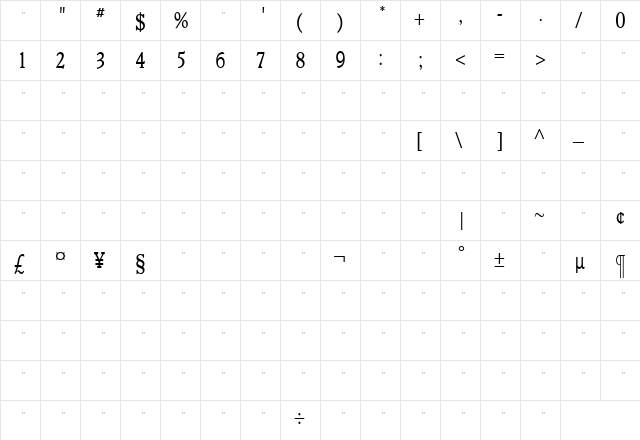
VeroneseBookCondensedTab Medium
Design Context for VeroneseBookCondensedTab Typeface
VeroneseBookCondensedTab offers clean, dependable letterforms without strong stylistic allegiance, making it a practical choice for designers who need flexibility. The condensed width makes it efficient for tight spaces without sacrificing legibility.